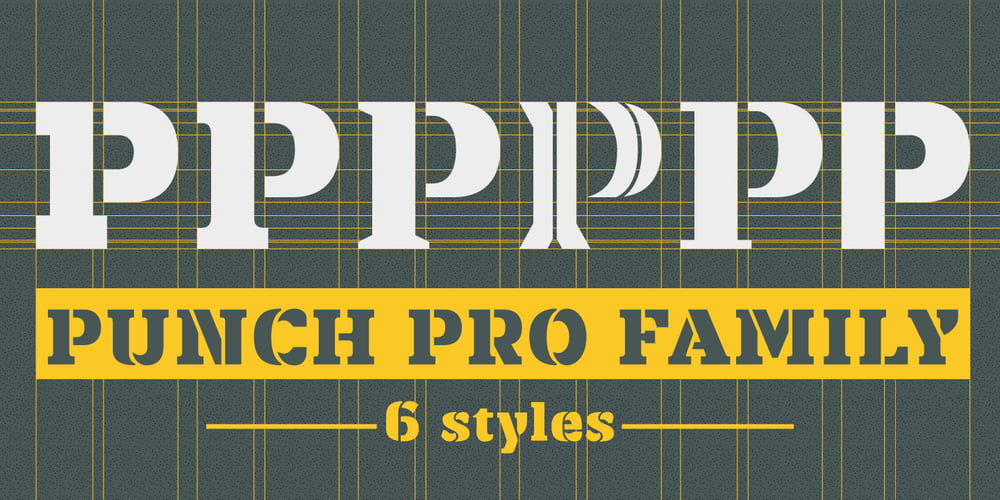
Punch Pro Font Family was designed by Sumpatha Jadee, Vorathit Kruavanichkit and published by Produce. Punch Pro contains 6 styles and family package options. Punch was born because we wanted to create a stencil font. At first glance, Punch gives out an audacious persona with its bold shape and form. It’s softer side is revealed in it’s carefully cut stencil lines. The balance of heavy and refined gives the font family its very own charm. Punch Pro comes in six different weights; Slab, Bracketed, Wedge, Deco, Hairline and Sans.